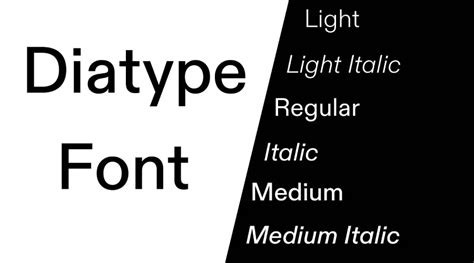
Diatype Font Vk. If you want to see how your text looks in diatype font before buying, you can use our diatype font. Web diatype is a warm yet sharp grotesque with reader friendly shapes that harken back to the typesetting era.
If you want to see how your text looks in diatype font before buying, you can use our diatype font. Обсуждения в сообществе fontomass | бесплатные шрифты | free fonts Web diatype is a warm yet sharp grotesque with reader friendly shapes that harken back to the typesetting era.
If you want to see how your text looks in diatype font before buying, you can use our diatype font. If you want to see how your text looks in diatype font before buying, you can use our diatype font. Обсуждения в сообществе fontomass | бесплатные шрифты | free fonts Web diatype is a warm yet sharp grotesque with reader friendly shapes that harken back to the typesetting era.